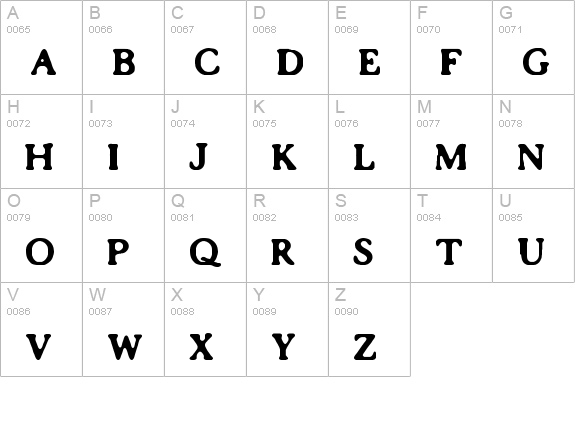
Impossibilium (BRK) Font Details
Impossibilium (BRK) font is a stunning display typeface that effortlessly blends modernity with a touch of whimsical charm. Its unique and intricate design captivates the eye, making it perfect for adding a touch of elegance to any design project. This font is a true testament to the creative prowess of its designer, with each letter meticulously crafted to evoke a sense of wonder and intrigue. The bold and sharp lines of Impossibilium (BRK) add a contemporary twist, while the playful curves inject a sense of fun and personality. One of the most remarkable aspects of Impossibilium (BRK) font is that it is not only visually striking, but also highly versatile. It seamlessly adapts to various design contexts, whether it's used for headings, logos, posters, or any other creative endeavor that requires a touch of sophistication. What makes Impossibilium (BRK) font even more appealing is that it is freely available to download at FontsMarket.com. This means that designers and enthusiasts alike can access and utilize this extraordinary font without any restrictions. Whether you're a professional designer looking to elevate your designs or a hobbyist looking to add a touch of creativity to your personal projects, Impossibilium (BRK) font is the perfect choice. So why wait? Discover the boundless possibilities that Impossibilium (BRK) font offers and let your imagination run wild. Download this remarkable font today from FontsMarket.com and unleash your creativity like never before.